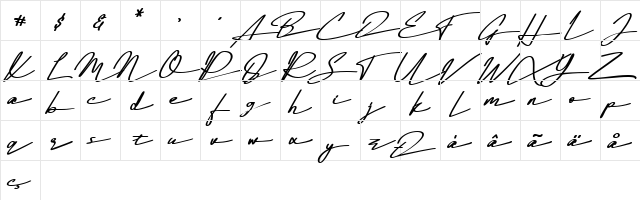
The Garisha DEMO Italic
The Garisha DEMO is a composed and adaptable typeface that performs quietly and consistently across a wide range of design contexts. The slanted form adds forward momentum and visual energy.